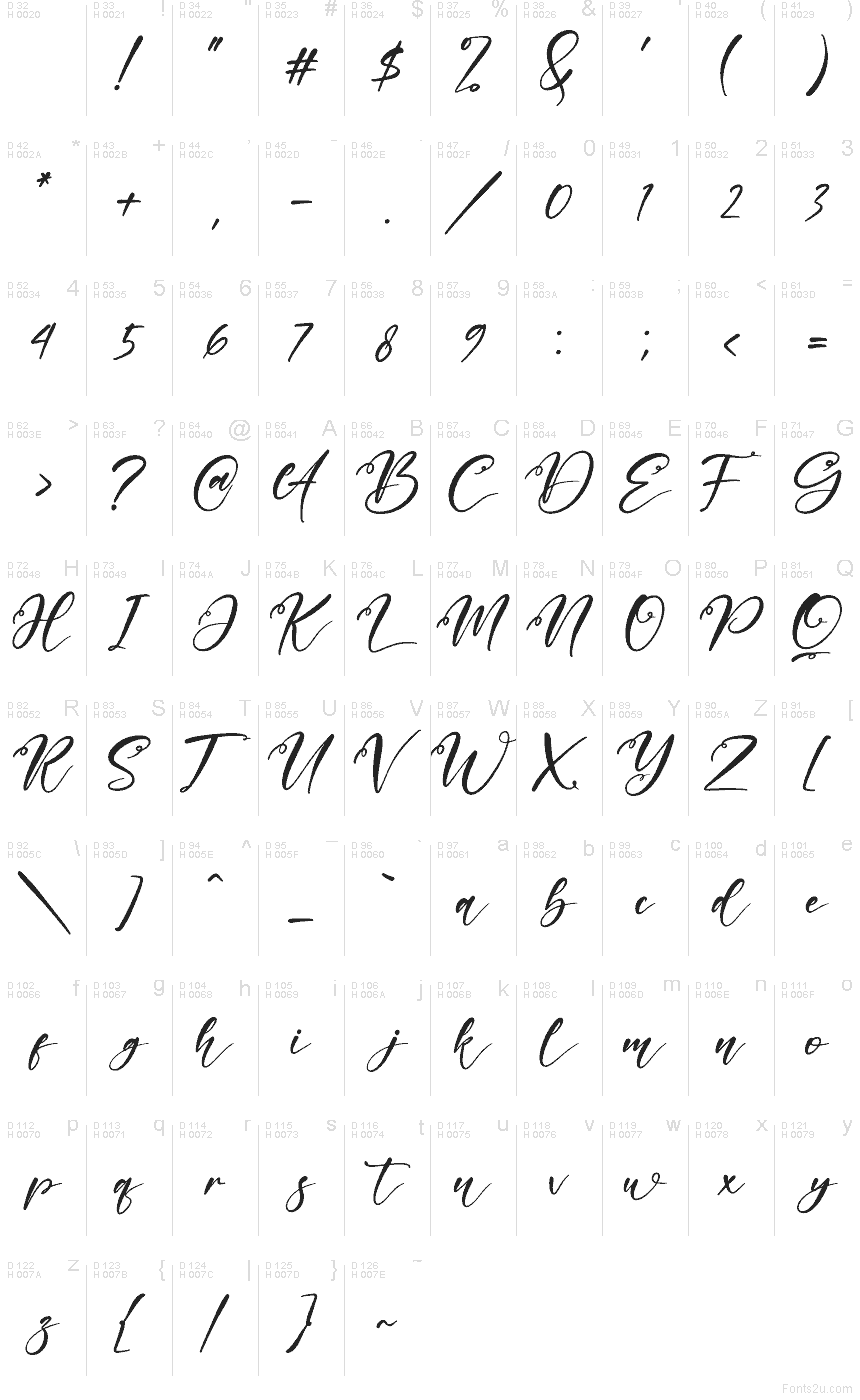
Hamida Lovely
Hamida Lovely font by Letterena Studios is a free handwritten typeface with an effortless, romantic sweep—like quick, confident strokes from a calligrapher’s brush pen. Long, looping connections and inky thicks and thins give it a soft, flowing movement that feels personal rather than posed. The letters lean gracefully into one another, creating a sense of motion that works beautifully when you want words to feel like a love note instead of layout text.
Using Hamida Lovely, you can instantly dress up wedding invitations, save-the-dates, greeting cards, feminine branding, product packaging, and social media quotes. This free font shines when set large as a signature-style logo or headline, then paired with a clean sans serif for the supporting details. Keep plenty of breathing room around it, and let the sweeping curves and generous loops carry the emotion of your message.